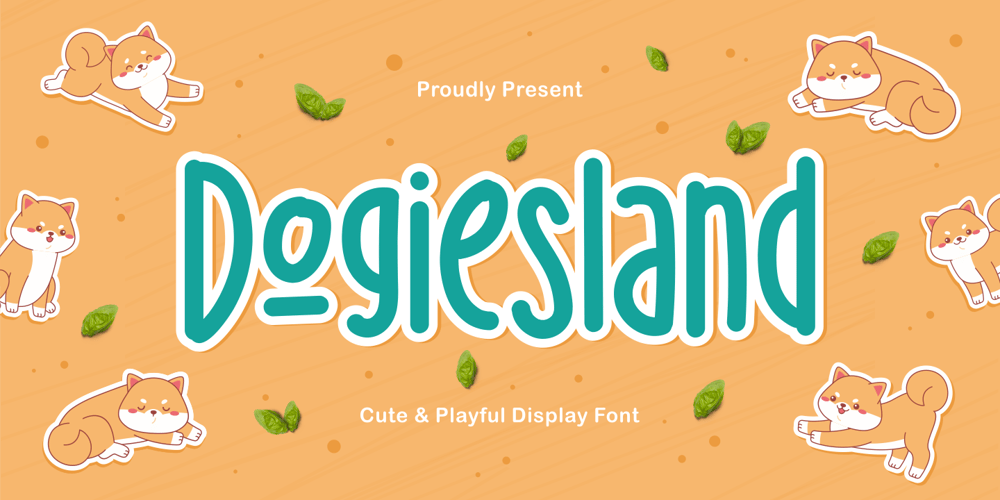
Dogiesland Font Family was designed by Fype and published by Fype Co. Dogiesland contains 1 styles and family package options. Dogiesland! A cute and playful display font was created to bring a playful and little bit infantile feeling to any design. cute clean letters look simple and modern. All node was cleaned in fairly natural shape. Its friendly feel makes this font incredibly versatile, fitting a wide range of kids’ design projects.